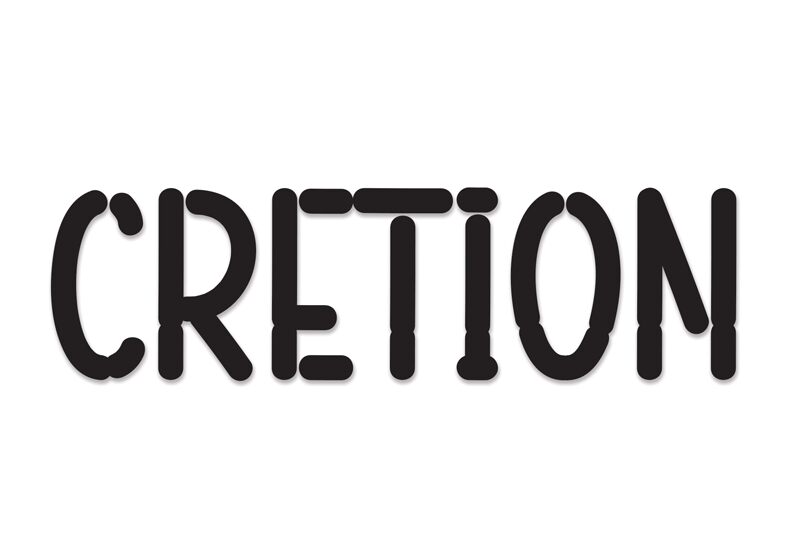
Cretion
Cretion font by Andi Moz is a free rounded stencil font. Built from soft, pill-shaped strokes with deliberate gaps, it lands somewhere between playful and industrial—like a chunky marker that’s been neatly cut into segments. The rhythm is steady and bold, so letters snap together with a satisfying, modular pulse that holds up at big sizes.
Using Cretion, headlines get instant character without turning messy. It shines on event posters, streetwear logos, snack packaging, DIY labels, gaming thumbnails, and maker-space signage. This free font thrives large to show its segmented texture; for body copy, pair it with a light geometric sans to keep things clean and readable.